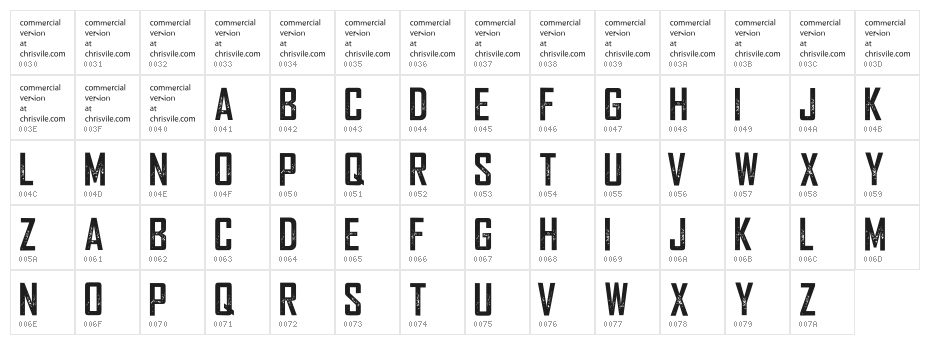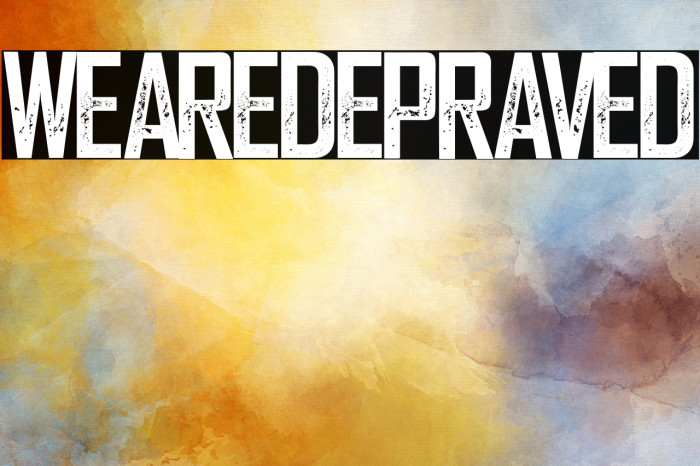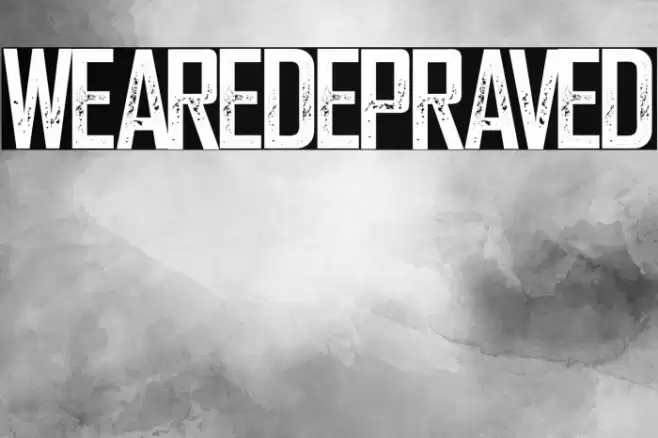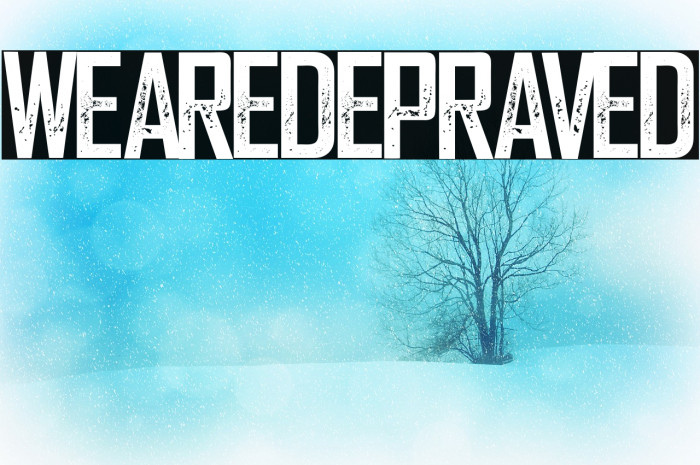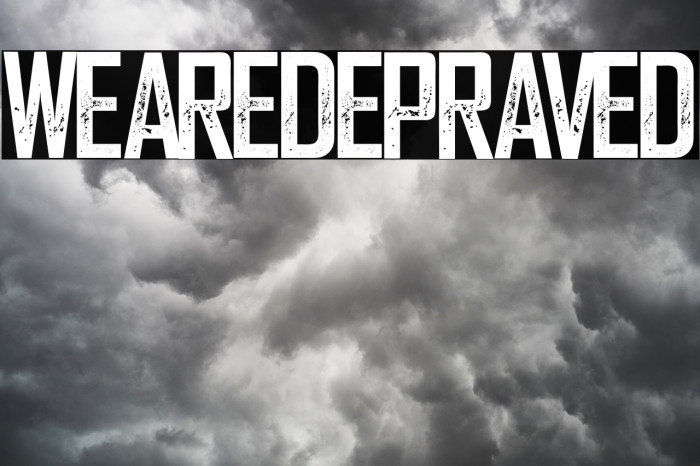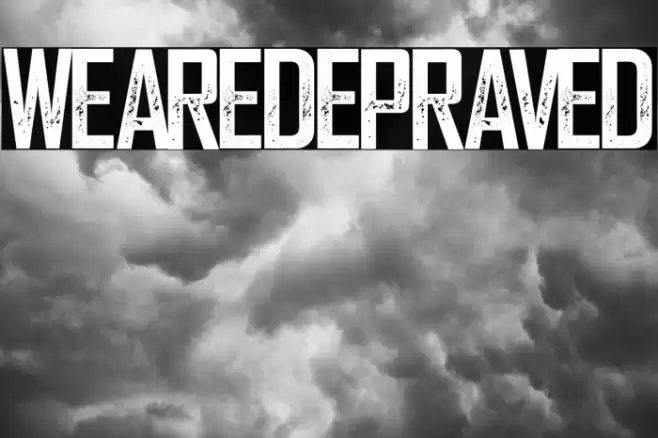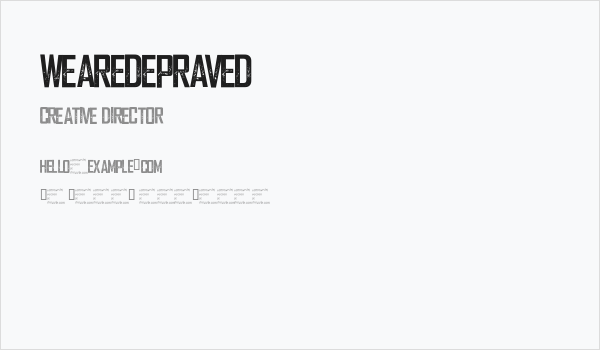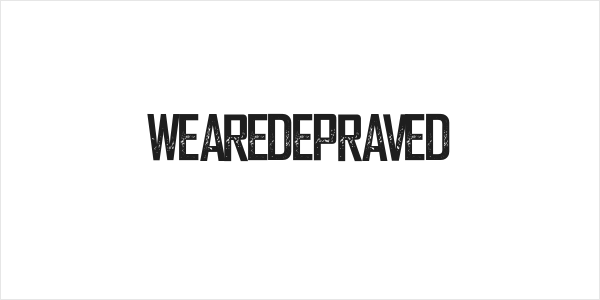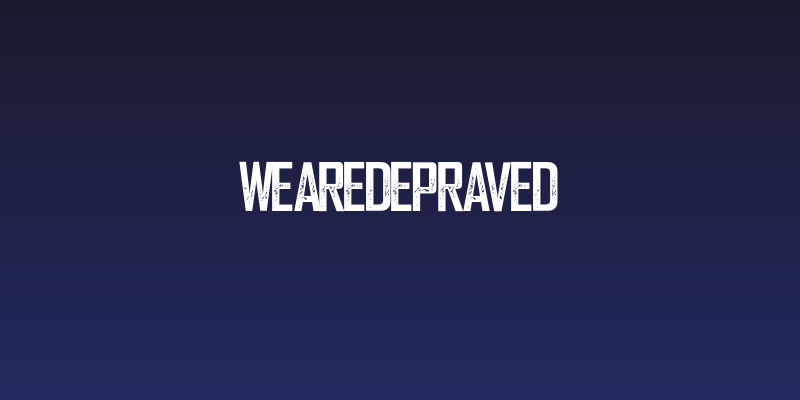
WeareDepraved Font
WeareDepraved Description
This font features a bold, distressed style with a gritty, textured appearance that gives it a rugged and edgy feel. The uppercase letters are uniformly tall and narrow, creating a strong vertical emphasis. The distressed effect is consistent across all characters, adding a sense of wear and tear that enhances its vintage and industrial aesthetic. The font's boldness and unique texture make it stand out, making it ideal for projects that require a strong visual impact. Its design is reminiscent of old signage or posters, giving it a timeless yet contemporary appeal.
| Proposed Projects | Ideal for posters, album covers, branding, and any design requiring a bold, vintage look. |